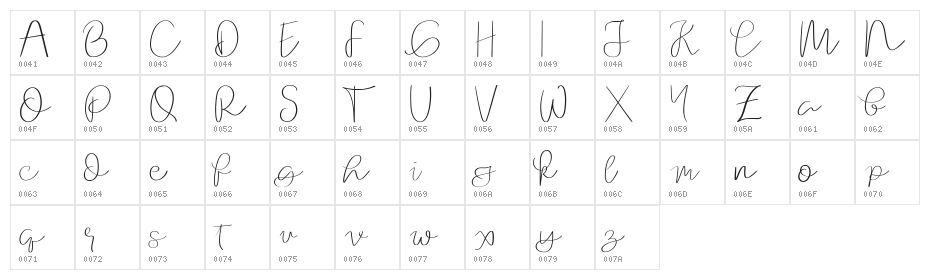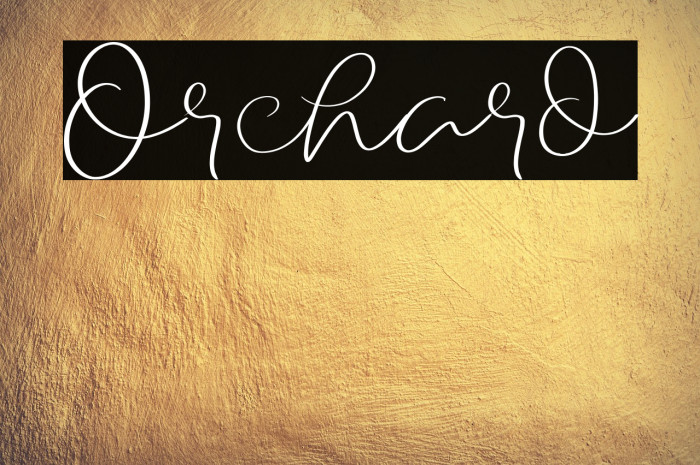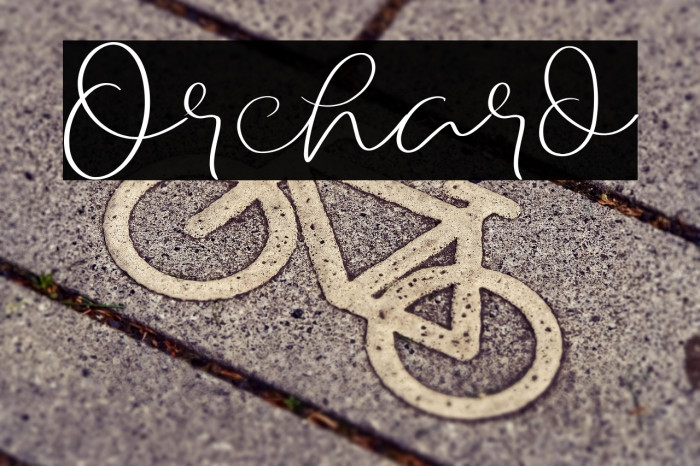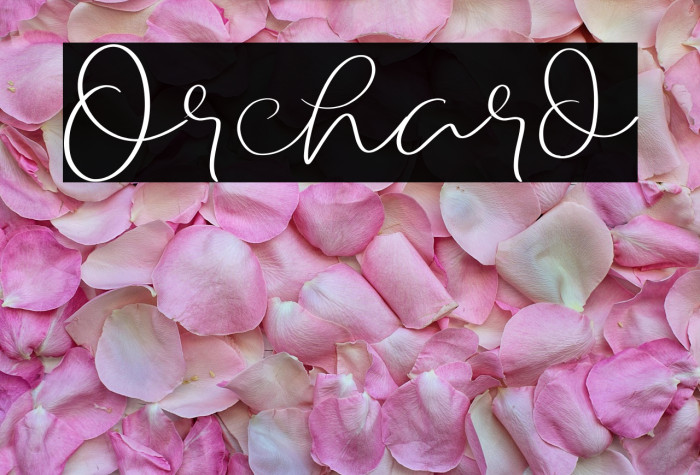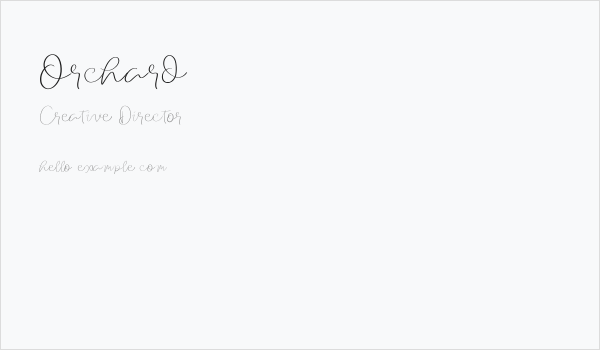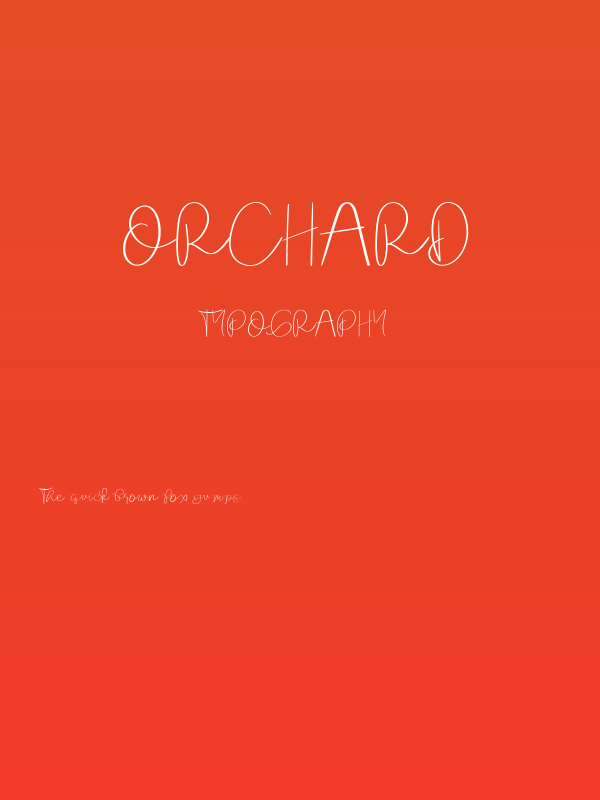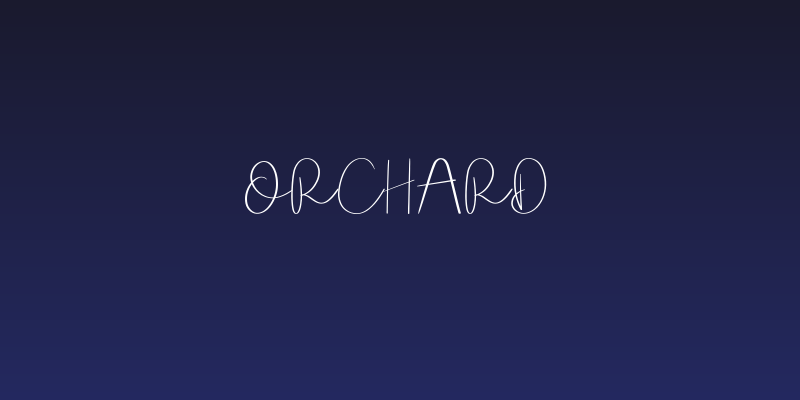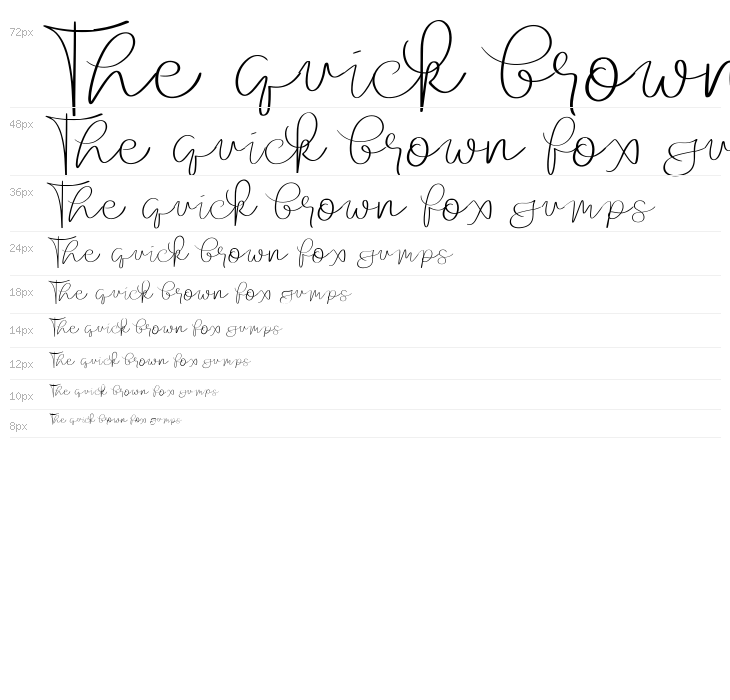
Orchard Font
Orchard Description
This font features a whimsical and flowing script style, characterized by its elegant, looping strokes and playful curves. The letters are interconnected, creating a sense of fluidity and movement. The uppercase letters are bold and prominent, while the lowercase letters maintain a delicate and airy appearance. The overall design is both sophisticated and approachable, making it suitable for a variety of creative applications. The font's unique style is perfect for adding a personal touch to any project, with its artistic flair and charming aesthetic.
| Use Case | Logos, Invitations, Creative projects |
| Proposed Projects | Ideal for wedding invitations, greeting cards, branding, and creative projects that require a personal touch. |